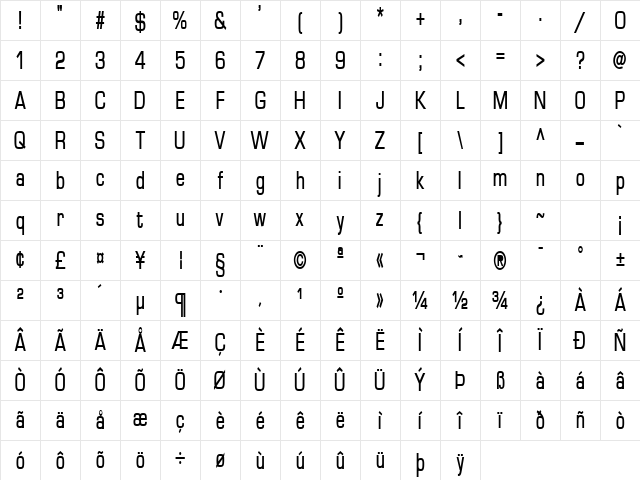
Complete Eurasia Thin Bold glyph index. Displaying only characters natively supported by Eurasia Thin Bold font.
Eurasia Thin is a composed and adaptable typeface that performs quietly and consistently across a wide range of design contexts. Its bold stroke weight gives it real presence on the page.